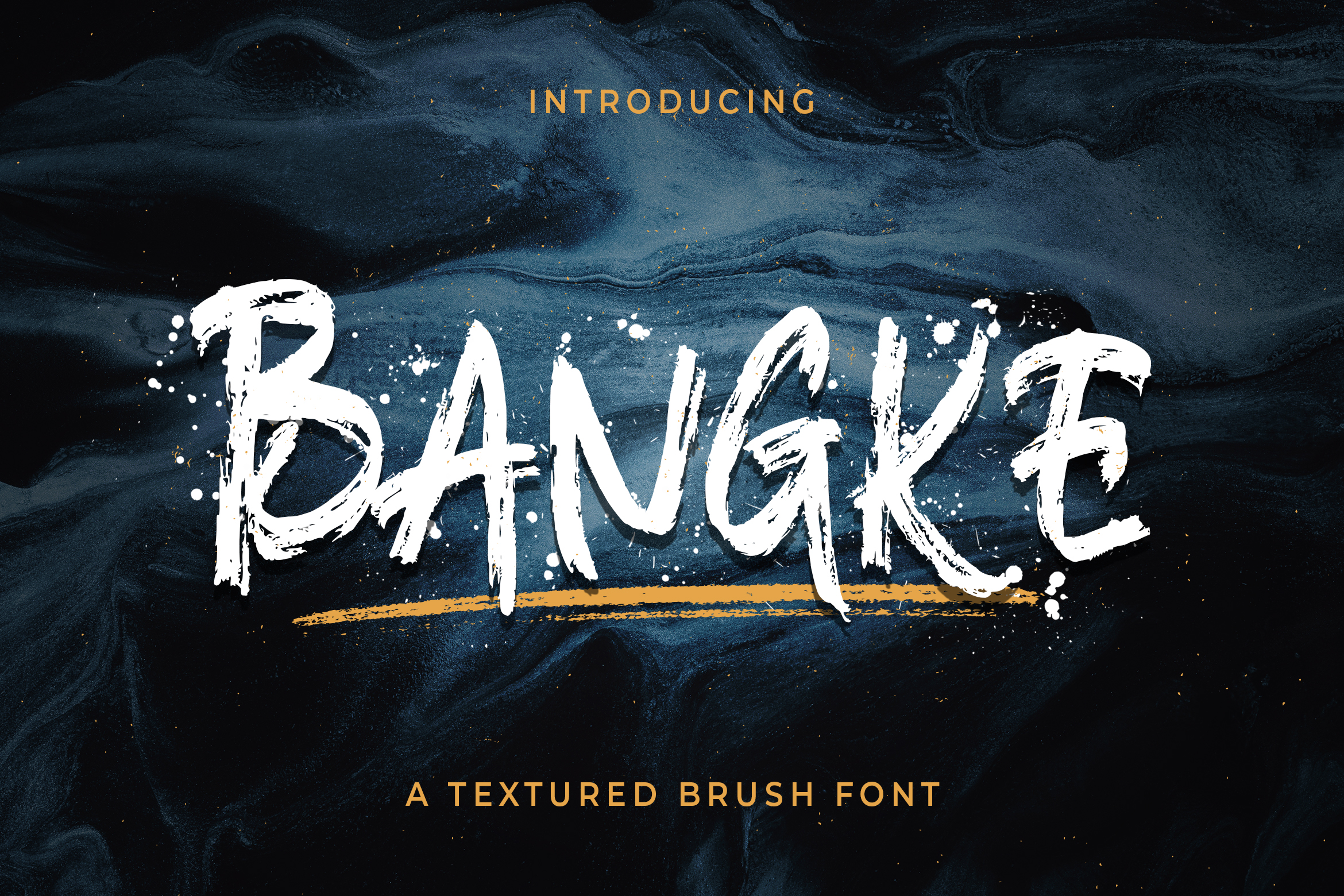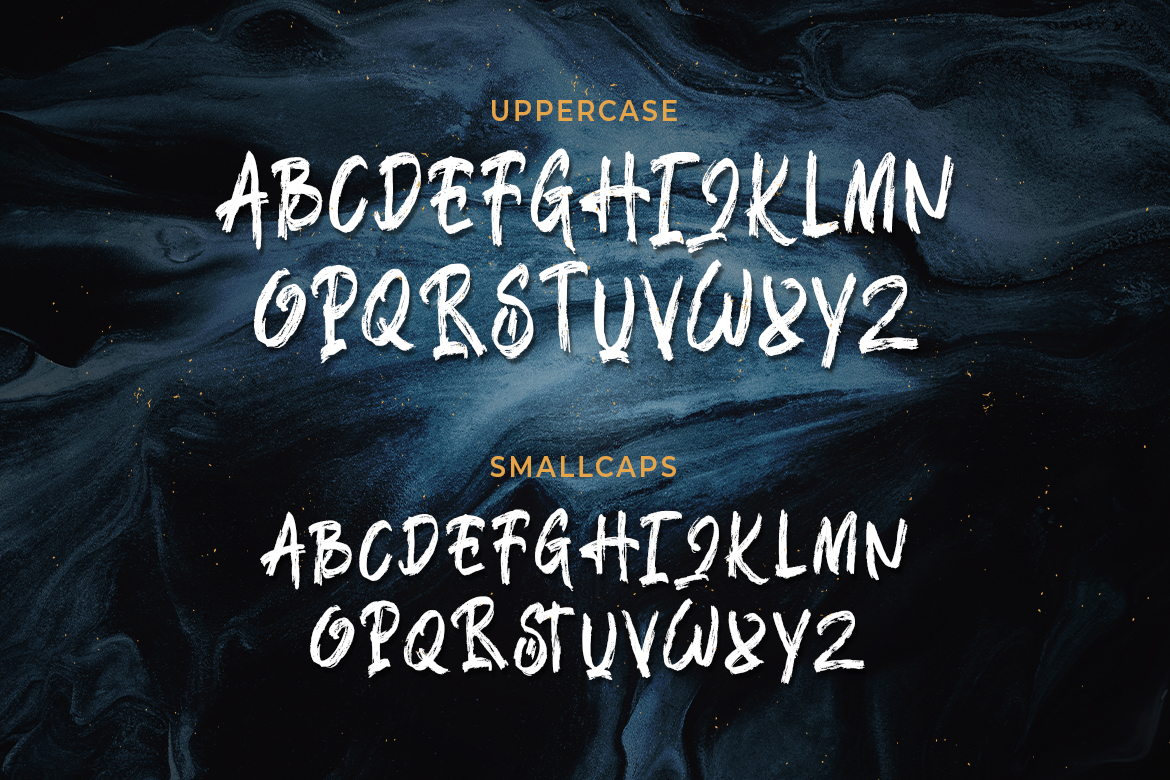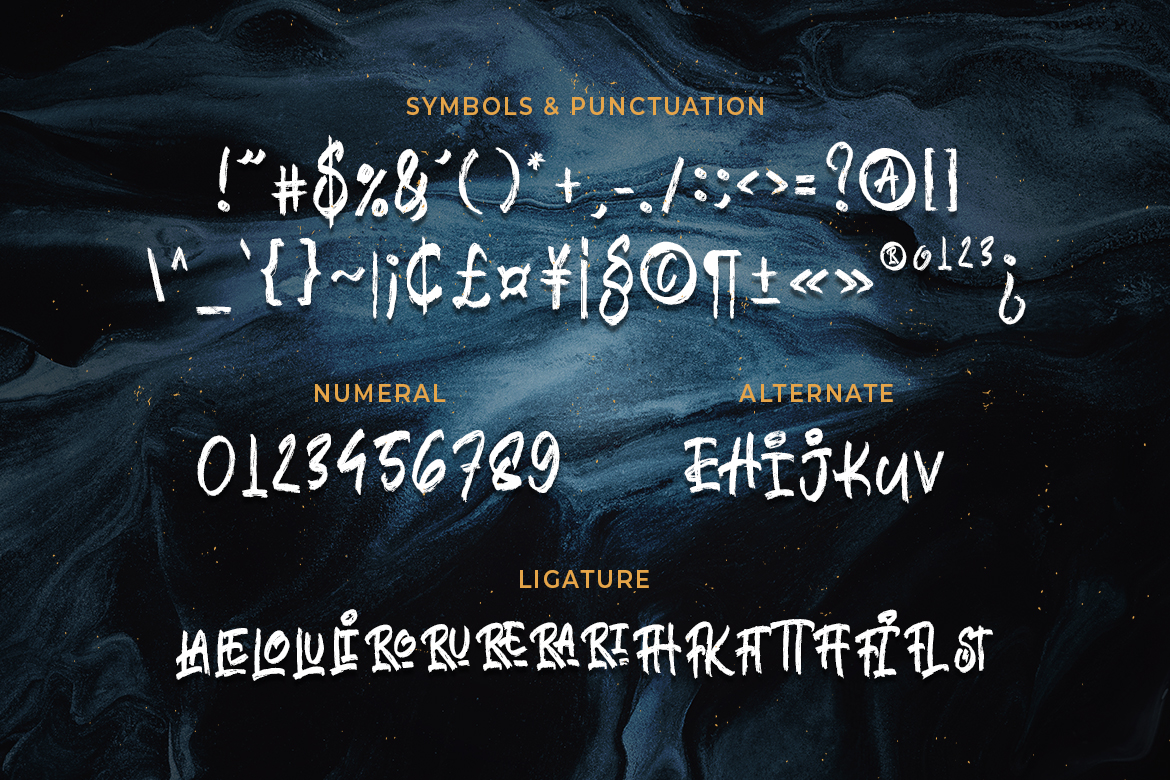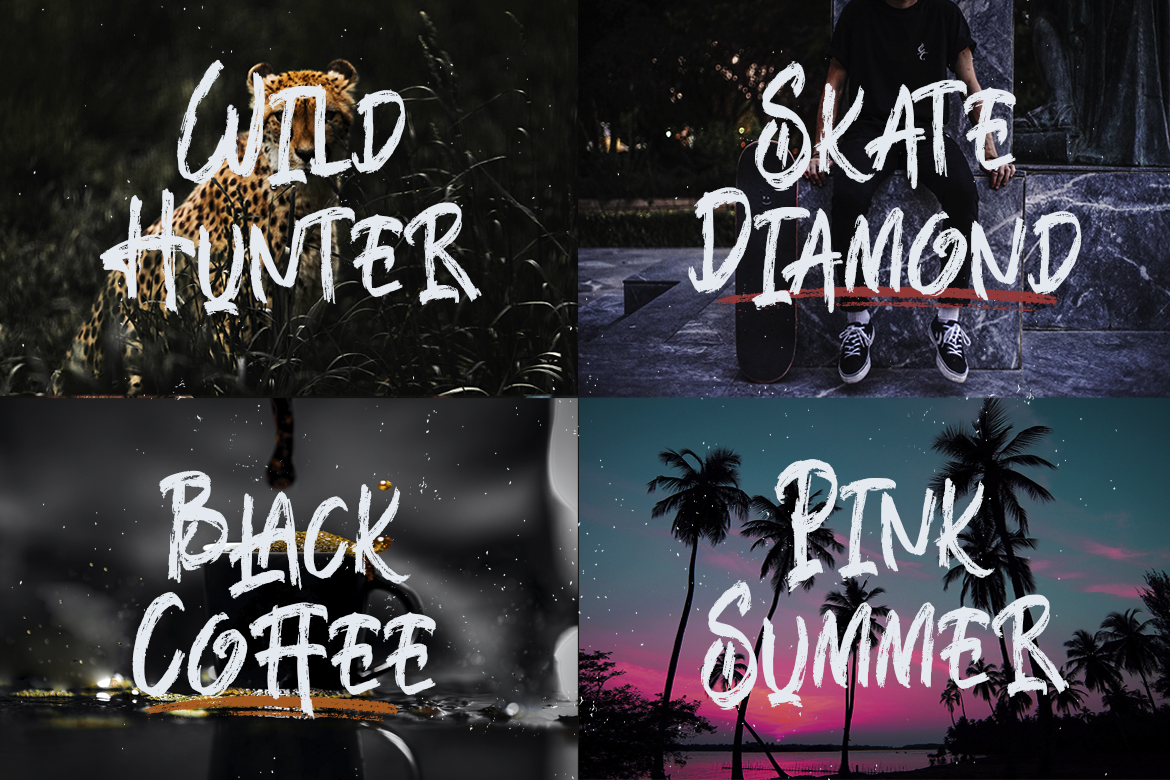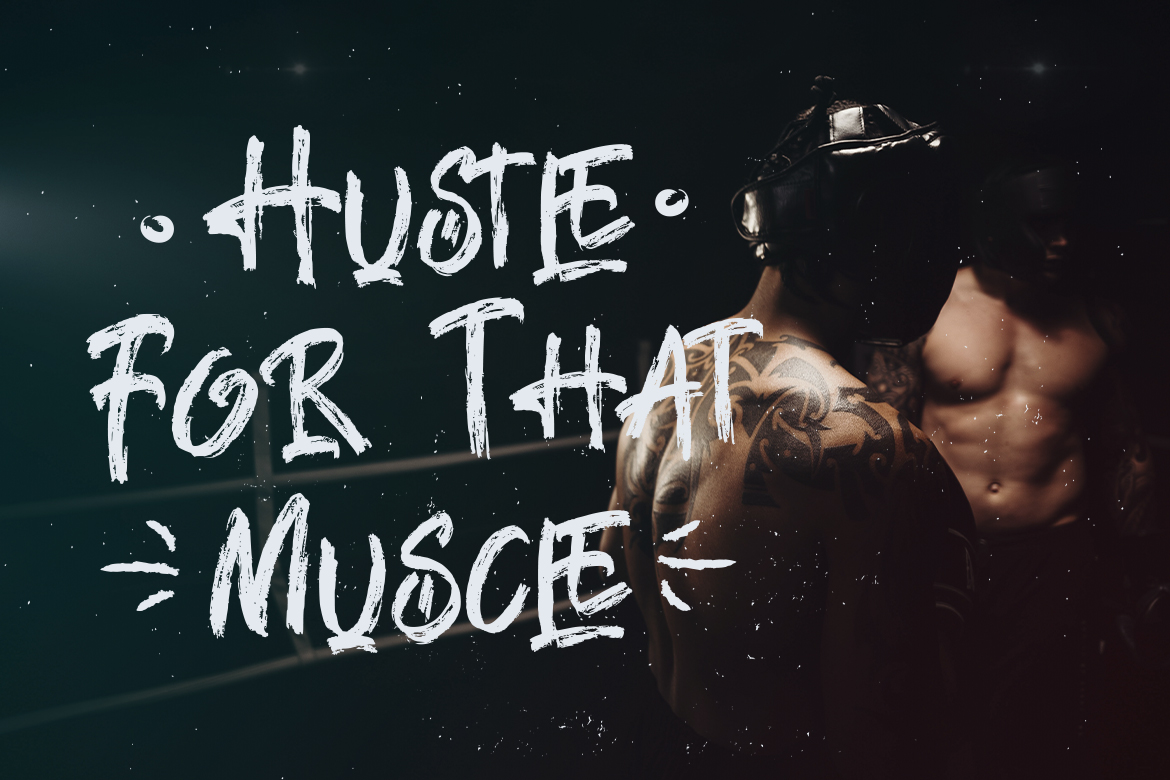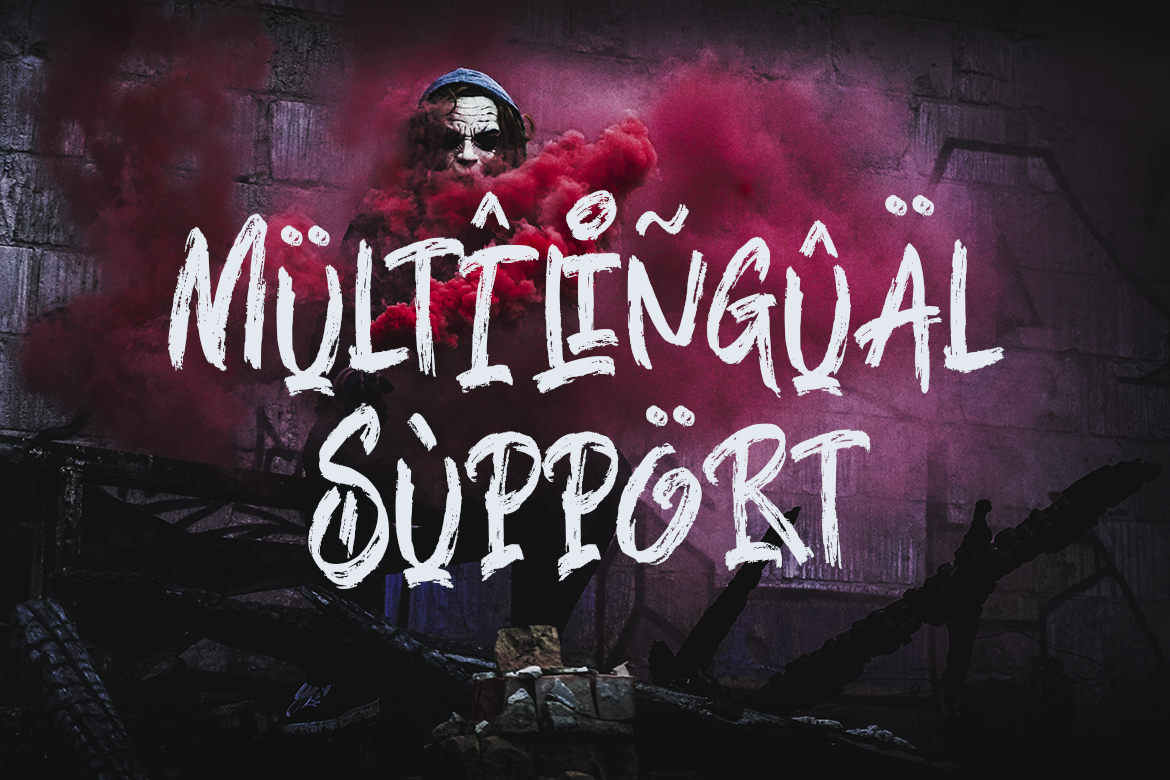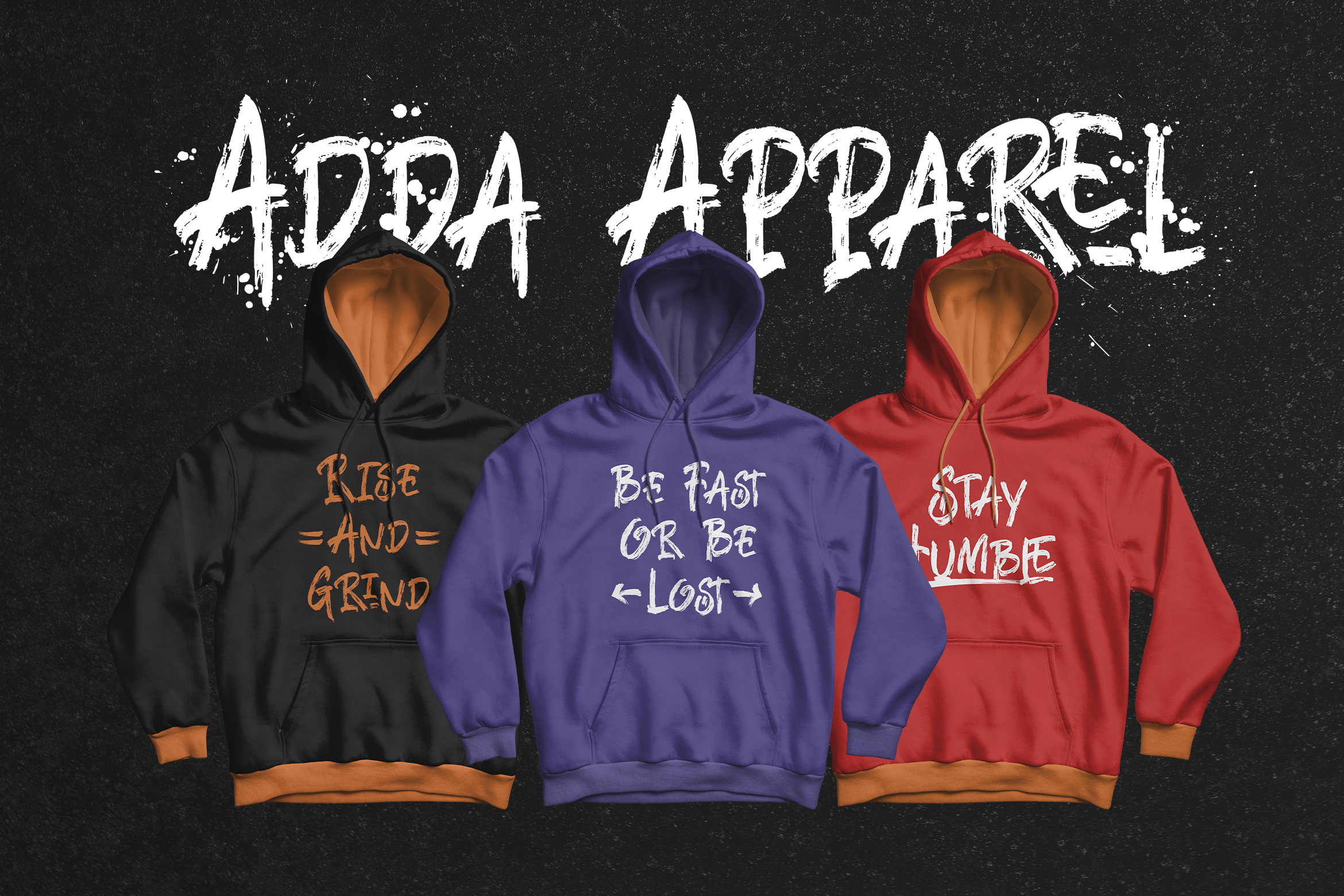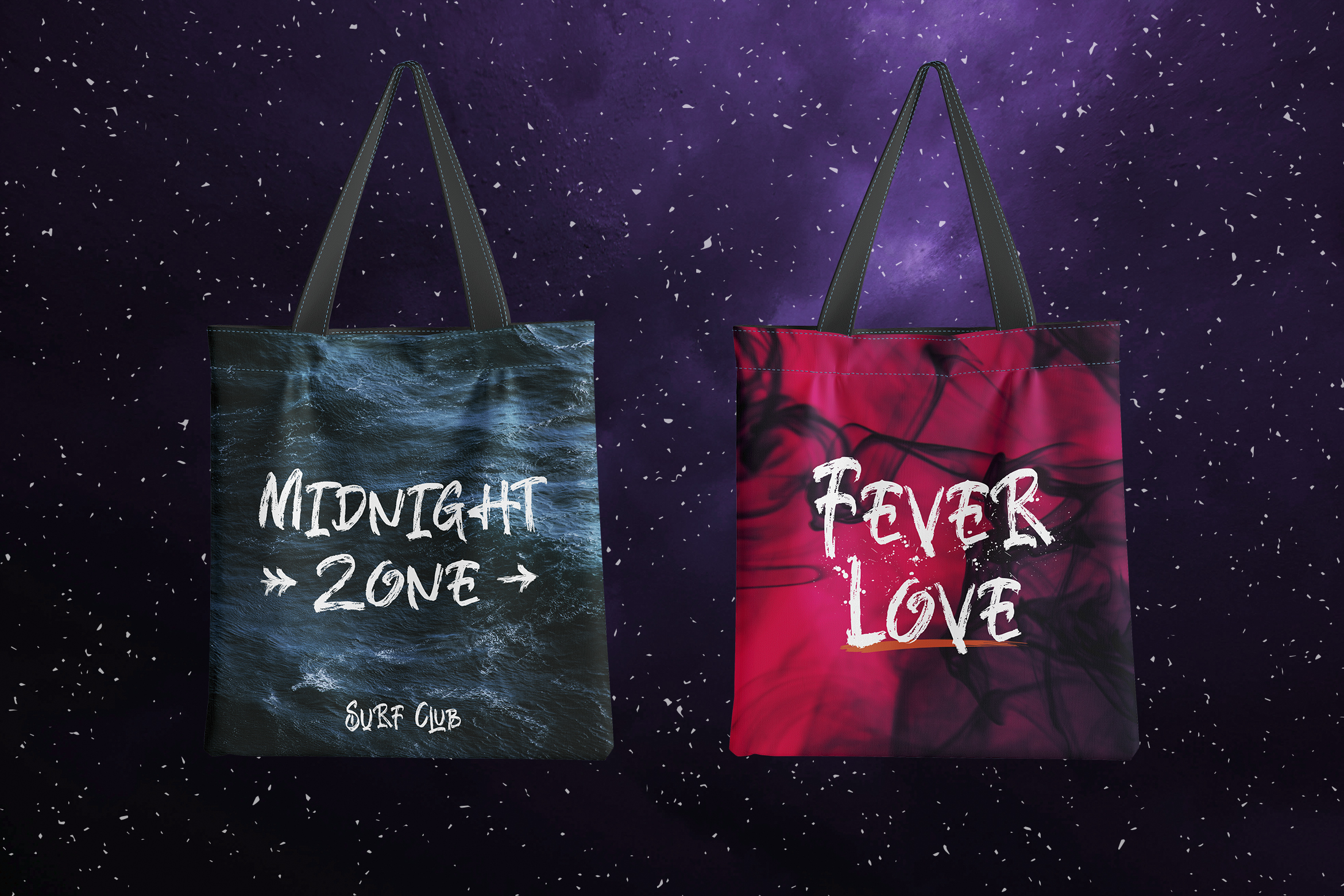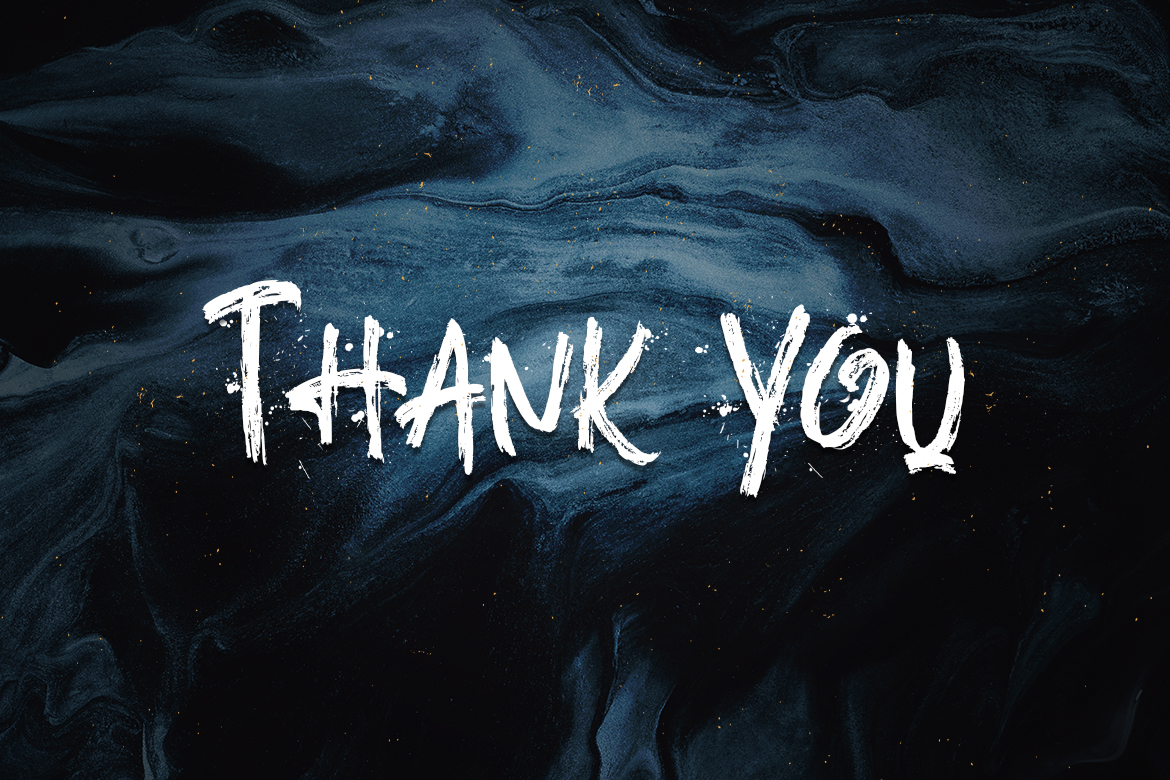
Bangke is a textured brush font with rough and casual letters. It’s great for logos, branding, print projects and any attention drawing headline.
Features:
– Uppercase – Smallcaps – Symbols & Punctuation – Numeral – Ligature – Alternate – Multilingual Support